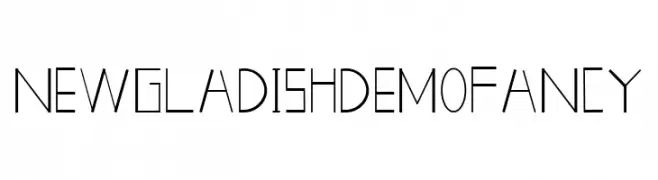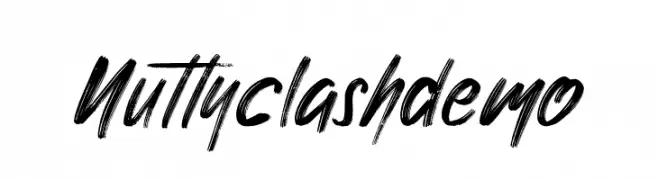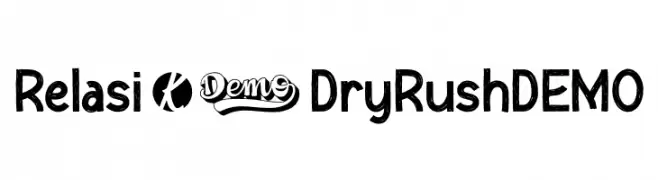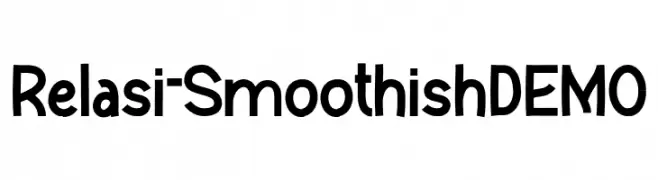
A playful, bold font with smooth, rounded characters and dynamic stroke variations.
A bold, hand-drawn font with a textured, brush-like appearance.
A bold, textured brush script font with dynamic strokes.
An elegant, swash-filled font with calligraphic influences and decorative flourishes.
A dynamic, brush-style script font with a lively, handwritten appearance.
A dynamic, brush-style font with bold, jagged strokes and an energetic appearance.
A playful, bold script font with smooth, flowing curves and a handwritten style.
A geometric and artistic font with sharp, angular letterforms.
A bold, brush-style font with dynamic, expressive strokes.
A bold, shadowed font with a geometric, vintage style.